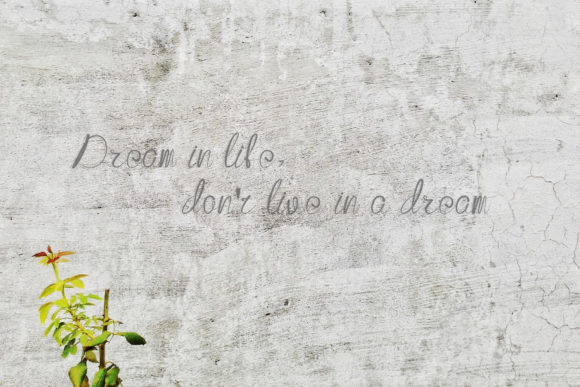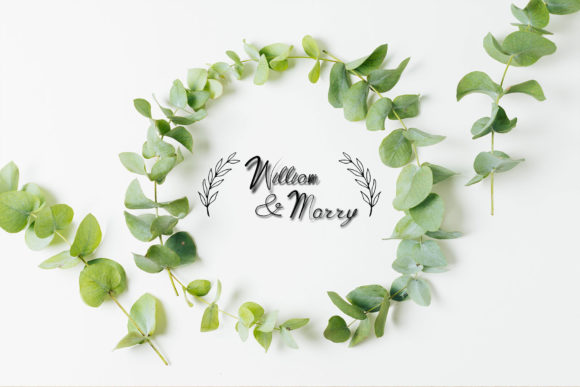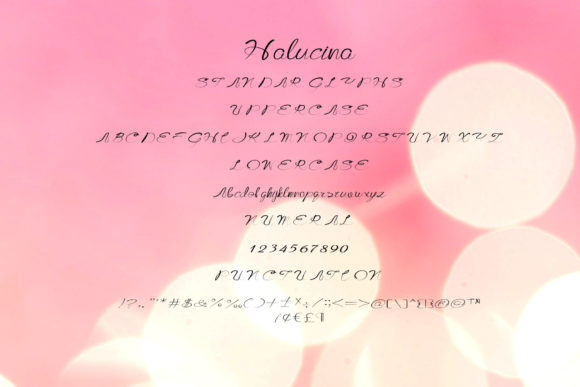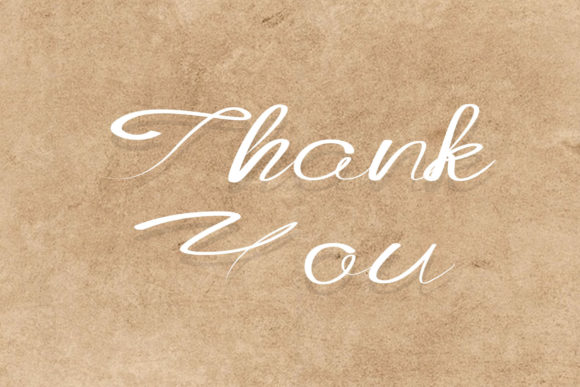
Introduction to Halucina Font
As a designer, there’s nothing quite like the thrill of stumbling upon a new design resource that sparks creativity and sets your project apart. For me, that moment came when I discovered the enchanting Halucina Font. Its delicate lines and elegant curves transported me to a world of whimsical wonder, begging to be used in a creative project that showcased its beauty.
Whether you’re crafting a stunning wedding invitation, designing beautiful stationery art, or simply want to add a touch of sophistication to your social media posts, Halucina Font is the perfect addition to your design toolkit. With its high-quality, transparent background, this font is a free download that’s sure to elevate your designs and leave a lasting impression on your audience.
Key Features of Halucina Font
- Unique and creative design ideal for various design projects, including logos, graphics, and branding materials.
- Comes with a transparent background, allowing for easy customization and integration into different design elements.
- Halucina Font is a perfect addition to any design resource library, offering a unique and creative touch to any project.
- Designed to be versatile and easy to use, making it an ideal choice for designers working on creative projects that require a distinctive and eye-catching font.
Honest Review: Halucina Font
As a designer, I’ve come across numerous fonts that promise to elevate my creative projects. The Halucina Font is one such find that has caught my attention. This free download is a great addition to any design resource, offering a unique and eye-catching aesthetic.
What works well: ✨ The font’s abstract design elements and swirling patterns make it perfect for projects that require a touch of whimsy. The high quality of the font ensures seamless integration into any design, and the transparent background allows for effortless layering.
- Unique and abstract design elements
- Perfect for creative projects that require a touch of whimsy
- High quality and seamless integration
- Transparent background for effortless layering
However, there are some limitations: ⚠️ The font may not be suitable for projects that require a more straightforward, legible text. Additionally, the abstract design elements may not be compatible with all design software.
Overall, the Halucina Font is a great addition to any designer’s toolkit. While it may have some limitations, its unique design elements and high quality make it a valuable resource for creative projects.
Halucina Font
The Halucina Font is a high-quality design resource ideal for creative projects. It offers a unique, eye-catching style that can elevate any visual project.
Tips for Getting the Most Out of Halucina Font
For the best results, use the Halucina Font in conjunction with other high-quality design elements. Experiment with different font sizes and styles to create a unique visual effect.
The Halucina Font is ideal for a variety of creative projects, including logos, brochures, posters, and social media graphics. Its transparent background and high-quality design make it perfect for use in presentations and documents.